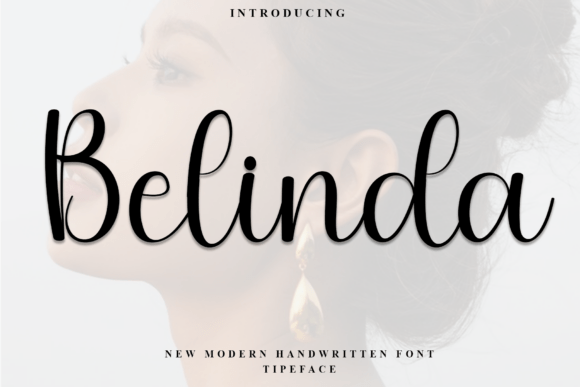
The Magic of Holiday Typography
As the snowflakes start to fall and the lights on the Christmas tree twinkle, many of us find ourselves in the midst of a creative frenzy. We’re on the hunt for the perfect font to capture the essence of the season, something that will transport our audience to a world of festive cheer and whimsy. And that’s where Belinda Font comes in – a merry and enchanting typeface that’s sure to bring a smile to your audience’s faces.
This delightful font is more than just a pretty face; it’s a valuable tool for designers looking to add a touch of nostalgia and magic to their holiday-themed projects. With its decorative elements and PUA encoded glyphs, Belinda Font makes it easy to access all the amazing features and ligatures, allowing you to let your typography shine in all its glory.
Belinda Font Key Features
- Font Family: Belinda
- Unique Characteristics: Belinda is a modern, elegant script font with a unique flair, ideal for creating eye-catching titles and headings.
Belinda Font Review
I’ve had the chance to work with the Belinda font, and I must say it’s been a mixed experience. ✨ On the positive side, the font does have a unique and elegant feel to it, which can be great for projects that need a touch of sophistication. It’s also quite readable, even at smaller font sizes, which is a big plus.
- ✨ Elegant and sophisticated feel
- ✨ Good readability even at smaller sizes
However, there are some limitations that might make it less suitable for certain projects. ⚠️ The font can feel a bit too ornate at times, which can make it difficult to read for some people. Additionally, the font family is relatively small, which means you might not have as many options when it comes to styling your text.
- ⚠️ Can feel too ornate at times
- ⚠️ Relatively small font family
Overall, I’d say the Belinda font is a solid choice for projects that need a touch of elegance, but it might not be the best fit for projects that require a more modern or minimalist look.
Belinda Font: A Practical Application Guide
Tips for Getting the Most Out of Belinda Font
Here are some tips for getting the most out of the Belinda font:
- Use it for headings and titles to add a touch of elegance.
- Pair it with other fonts for a unique and sophisticated look.
The Belinda font is ideal for:
- Designing wedding invitations and stationery.
- Creating professional-looking logos and branding materials. Alternatives to Belinda Font for Designers
- Pair the Belinda Font with watercolor illustrations or hand-drawn elements for a whimsical and romantic look.
- Use a combination of gold and silver foil stamping to add a touch of luxury and sophistication.
- Balance the elegant script with modern geometric shapes or clean lines for a unique contrast.
- Pair the Belinda Font with watercolor illustrations or hand-painted backgrounds for a unique and artistic look.
- Use a combination of ribbons, lace, or other textured elements to add depth and dimension.
- Balance the elegant script with modern graphics or geometric shapes for a modern contrast.
Ostrich Sans is a modern sans-serif font that works well for headlines and titles. It’s a great choice for designers who want a clean and minimalist look. Compared to Belinda Font, Ostrich Sans has a more geometric and sleek feel, making it ideal for digital designs and websites.
Montserrat is a sans-serif font that originated from a sign in a Buenos Aires neighborhood. It’s a versatile font that works well for body text, headlines, and titles. Compared to Belinda Font, Montserrat has a more urban and industrial feel, making it ideal for designs that require a strong and modern look.
Playfair Display is an elegant and luxurious script font that’s perfect for titles, headings, and logos. It’s a great choice for designers who want to add a touch of sophistication and elegance to their designs. Compared to Belinda Font, Playfair Display has a more refined and classic feel, making it ideal for high-end designs and luxury brands.